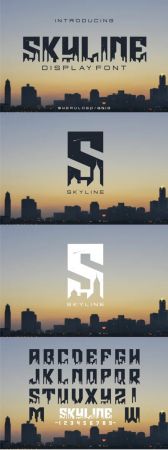
Skyline is a jaw-dropping display font featuring the urban landscape as its main design reference. It will look splendid in logos, or any city-themed projects!